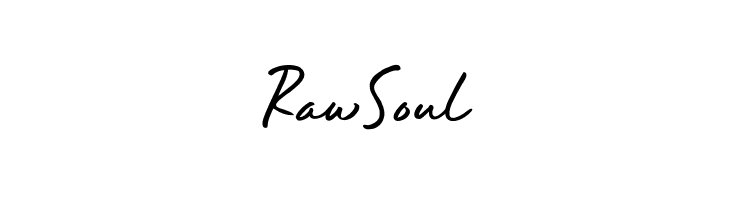
A raw, hand-drawn font with playful and artistic characteristics.
A handwritten, cursive font with smooth, flowing lines and a casual elegance.
A casual, handwritten font with fluid and natural strokes.
A hand-drawn, textured font with a raw, organic appearance.